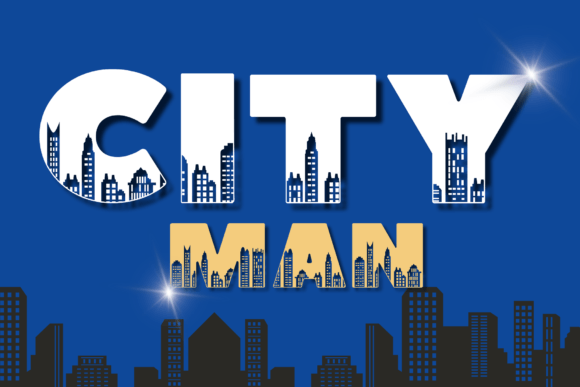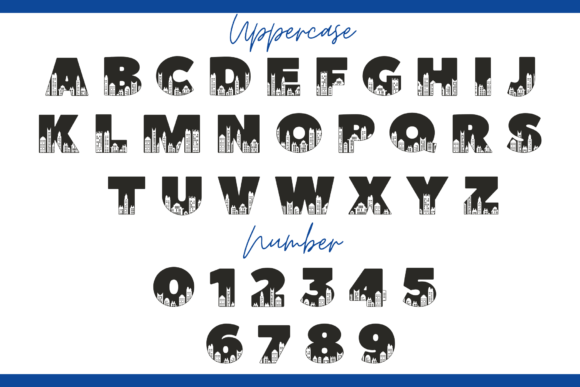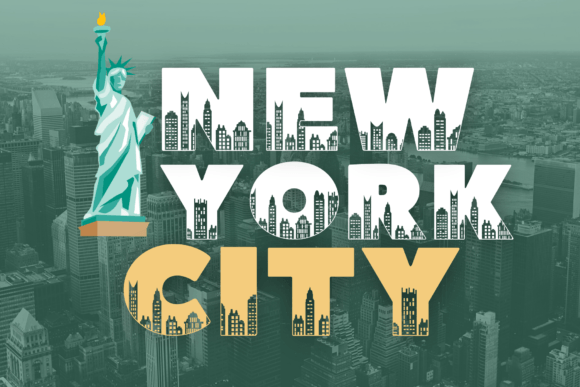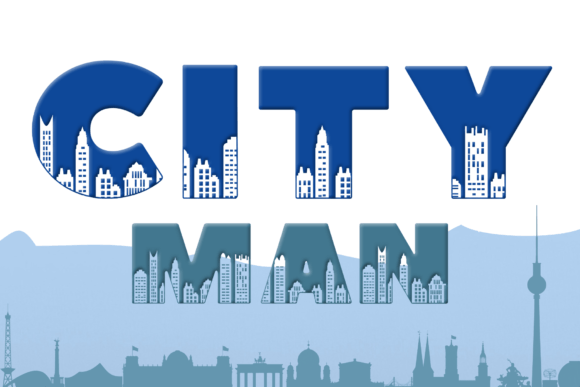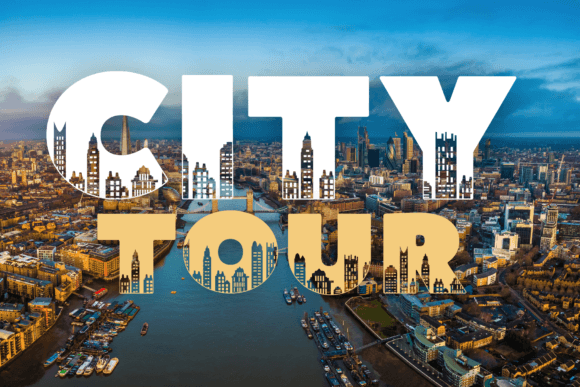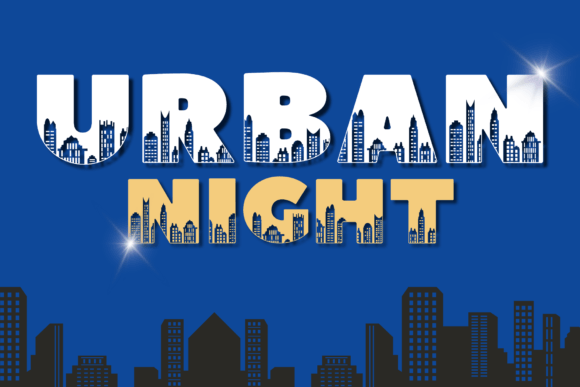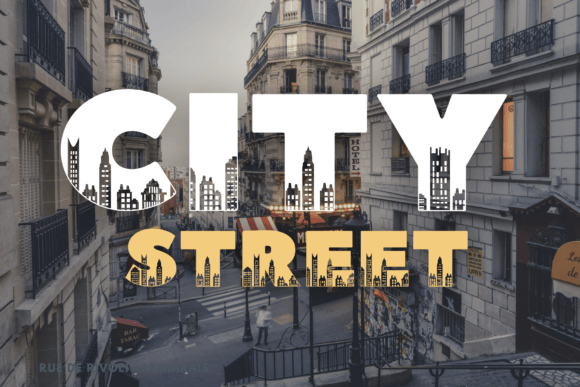
The Perfect Blend of Fun and Style: City Man Font
Have you ever stared at a blank canvas, struggling to find the right words to bring your creative vision to life? That’s where City Man Font comes in – a cool font that adds a dash of fun and personality to your designs. This adorable display font is perfect for making your art and design projects stand out from the crowd.
With City Man Font, you can create eye-catching graphics for T-shirts, cards, party invites, mugs, wall art, and more. Its playful charm makes it an ideal choice for designers looking to add a touch of whimsy to their work. Whether you’re a seasoned pro or just starting out, City Man Font is a valuable addition to your design toolkit, helping you to bring your ideas to life in a fun and engaging way.
Key Features of City Man Font
- Font Family: City Man Font is a sans-serif font family designed for urban and modern settings.
- Font Size: City Man Font comes in multiple weights, ranging from Light (100) to Extra Bold (900), offering flexibility for various design applications.
- Unique Characteristics: The font features a geometric, urban aesthetic with clean lines, sharp angles, and a modern feel, making it ideal for city-themed designs, tech brands, and futuristic concepts.
City Man Font Review
Overall, the City Man Font has some nice qualities that make it a decent choice for certain design projects. ✨ Its bold and modern feel is reminiscent of classic urban typography, and it pairs well with clean and minimalistic designs. ✨ The font also comes in a variety of weights, which is always a plus for designers who want to add some depth to their text. ✨
- Wide range of weights and styles
- Modern and bold feel
- Pairs well with minimalistic designs
However, there are some limitations to the City Man Font that designers should be aware of. ⚠️ For one, the font may not be suitable for longer blocks of text, as it can start to feel a bit overwhelming. ⚠️ Additionally, the font’s boldness may not be suitable for all audiences, particularly those who prefer a more subtle look. ⚠️
- May not be suitable for longer blocks of text
- Boldness may not be suitable for all audiences
- Some letters may not be as legible at smaller sizes
Overall, the City Man Font is a solid choice for designers who want a modern and bold font for their projects. However, it’s not without its limitations, and designers should be aware of these before making a decision.
City Man Font is ideal for urban-themed designs, such as city maps, street art, and graffiti. It’s also great for creating a modern and edgy feel in logos, posters, and other visual materials.
Tips for Getting the Most Out of City Man Font
To get the most out of City Man Font, experiment with different font sizes, colors, and styles to create a unique and eye-catching design. Pair it with bold and geometric shapes to add depth and visual interest to your design.
What font sizes and styles are available in City Man?
The City Man font family includes multiple weights and styles, including Thin, Light, Regular, Medium, Bold, and Black. Each weight has a corresponding italic version. This provides a wide range of typographic options for your designs.